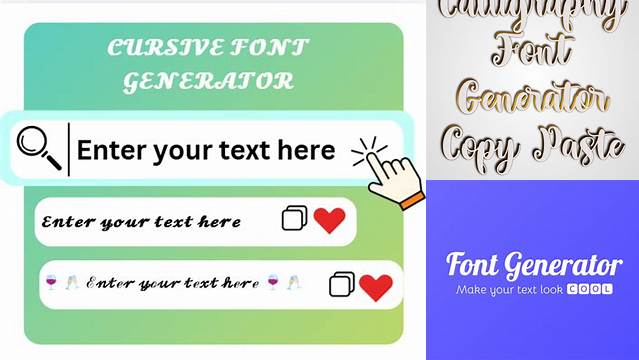
Elegant Fonts Generator: Copy & Paste Styles
Hey everyone! Ever wanted to spice up your social media posts, bios, or even just your everyday text messages? Well, you're in luck! We're diving headfirst into the world of elegant fonts generator, specifically the kind you can copy and paste. Forget the hassle of complicated software or coding – we're talking instant style upgrades with just a few clicks. Get ready to transform your plain text into something extraordinary!
Why Use an Elegant Fonts Generator?
So, why bother with fancy fonts, right? The truth is, using an elegant fonts generator to change your text can open up a whole new world of creative possibilities. It's all about standing out from the crowd and adding a little flair. First impressions matter, whether you're crafting a catchy Instagram bio, designing a cool website header, or just sending a unique message to your friends.
Think about it: in a world saturated with the same old Times New Roman and Arial, a beautifully designed font can instantly grab attention. It can reflect your personality, enhance your brand, and make your content more engaging. Elegant fonts can set a specific tone, whether you're aiming for sophistication, playfulness, or a touch of mystery. Imagine using a cursive font to add a personal touch to a handwritten-style social media post. Or perhaps a bold, decorative font to announce an event. The choices are as diverse as your imagination!
Beyond aesthetics, using an elegant fonts generator can also improve readability and make your text more accessible. Some fonts are specifically designed to be clear and easy to read, even at smaller sizes. This is particularly useful for things like logos, website navigation, and call-to-action buttons, where clarity is absolutely key. Having a stylish font that's still easy on the eyes ensures your message is not only visually appealing but also easily understood. A well-chosen font can make the difference between a message that's glanced over and one that really sticks in the mind.
Moreover, the convenience of a copy-and-paste elegant fonts generator can't be overstated. No downloads, no installations, no tech headaches. You just type in your text, select your desired font style, copy the output, and paste it wherever you need it. It's simple, fast, and accessible to anyone with an internet connection. Whether you're a social media guru, a budding designer, or just someone who loves to express themselves creatively, this is a tool that makes it easy. It empowers you to experiment with different fonts and styles without investing a lot of time or money.
Furthermore, an elegant fonts generator can enhance your overall branding. Consistent use of unique fonts can help create a recognizable brand identity. Your choice of fonts tells a story about your brand's personality and values, making it easier for your audience to connect with you. The use of a distinct font in your logo, website, and marketing materials creates a cohesive and memorable brand experience. Your fonts become a part of your brand’s visual language, setting it apart from competitors and helping to establish brand recognition.
Finally, using an elegant fonts generator can increase engagement. People are more likely to pay attention to unique and visually appealing content. Creative fonts can stop users in their tracks and make them pause for a moment. By making your content visually exciting, you increase the chances of your audience interacting with it. A well-designed font can turn a simple message into something shareable, creating a positive buzz and boosting your online presence. The right font can transform a simple quote into a memorable meme, encouraging others to share your thoughts and extend your reach.
How Does an Elegant Fonts Generator Work?
Alright, let's get down to the nitty-gritty. How exactly does an elegant fonts generator work its magic? The process is surprisingly simple and user-friendly. Essentially, these tools use Unicode characters to create the illusion of different fonts. Unicode is a standard that assigns a unique number to every character used in writing systems worldwide.
When you type your text into the generator, it takes each character and converts it into a corresponding Unicode character that looks like a different font. These characters are then combined to create the fancy-looking text you see. The generated text isn't actually a new font file; it's just a clever combination of different Unicode symbols. Because of this, you can copy and paste the text into most platforms and applications without any issues.
The beauty of this approach is its versatility. Since it relies on Unicode, the generated text is compatible with a wide range of devices, browsers, and social media platforms. No matter what device your audience is using—a computer, a tablet, or a smartphone—they will be able to see the stylish text you've created. This universal compatibility is what makes these generators so practical and useful. It's the key to ensuring that your fancy fonts look exactly as intended on every platform.
Different generators offer various font styles, from elegant cursive and calligraphy to bold, blocky designs and everything in between. The variety allows you to tailor your text to match your specific needs and preferences. Whether you’re looking for something classic and sophisticated or modern and edgy, you’re likely to find a style that perfectly fits your vision. Experimenting with the different options is part of the fun. You can mix and match font styles to create something truly unique and eye-catching.
Conclusion: Elevate Your Text Today
So, there you have it, guys! Elegant fonts generators are a fantastic tool for anyone looking to add a touch of creativity and style to their text. With the ability to easily copy and paste your text, you can start transforming your content in seconds. Have fun experimenting and making your text stand out! Remember to choose fonts that suit your message, audience, and platform. Go out there, and make your text shine!